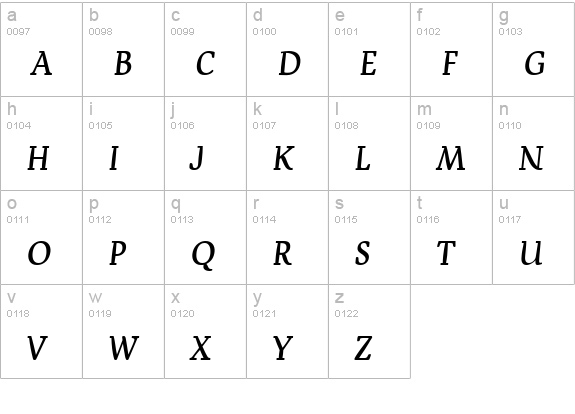
Devroye SCOSF Font Details
Devroye SCOSF font is a stunning and modern typeface that blends elegance with a touch of playfulness. With its clean lines and unique letterforms, this font is perfect for a wide range of design projects, from branding to editorial design. The Devroye SCOSF font offers a wide variety of weights and styles, making it versatile and adaptable to various design needs. What makes the Devroye SCOSF font even more appealing is that it is available for free download at FontsMarket.com. This means that you can easily access this beautiful font without any cost, making it a must-have addition to your font collection. Whether you are a designer looking for a fresh new font to elevate your projects or simply a typography enthusiast, the Devroye SCOSF font is sure to impress with its charm and versatility.